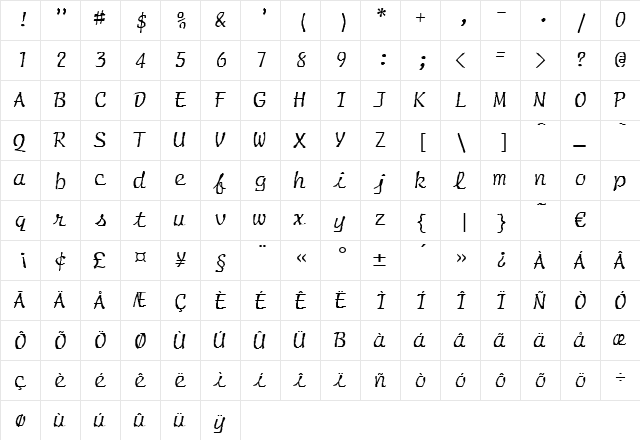
Manguste Regular
Design Context for Manguste Typeface
Manguste takes a measured approach to typography — its balanced proportions and neutral character make it a reliable workhorse for both digital and print work.
Pro Tip: Use Manguste in both headline and body roles to test its range before committing to a single application.